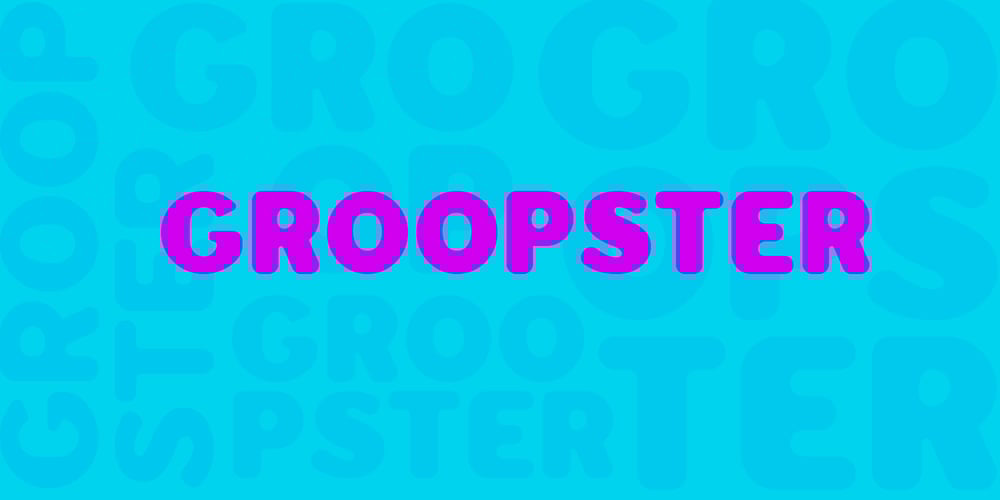
Groopster
Groopster font
Groopster Font Family was designed by Volodymyr Berla and published by VladB. Groopster contains 2 styles and family package options. Groopster is a fun cartoon font, includes upper and lower case characters, Latin, Cyrillic, Latin Eastern Europe, Turkish, Baltic and other, 500+ symbols.Groopster family consists of 2 fonts: Black and Bold thickness.Groopster fonts will be useful in developing a brand, creating posters and other graphic products.